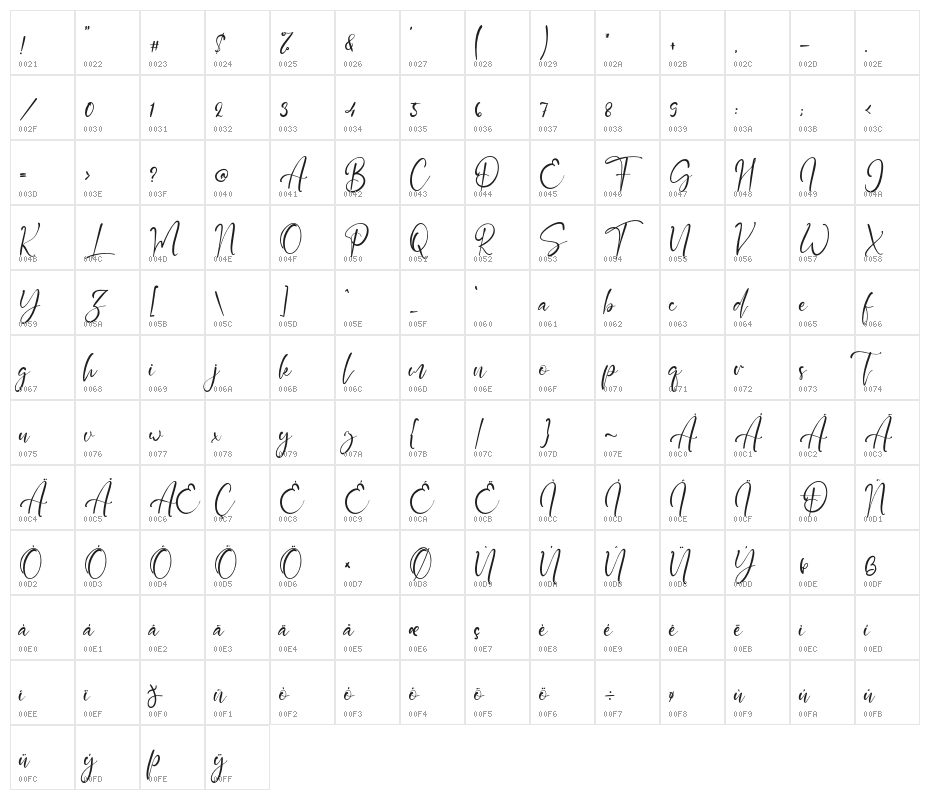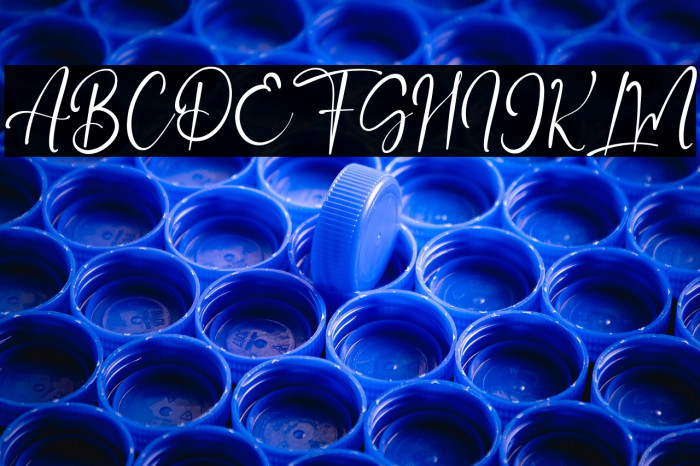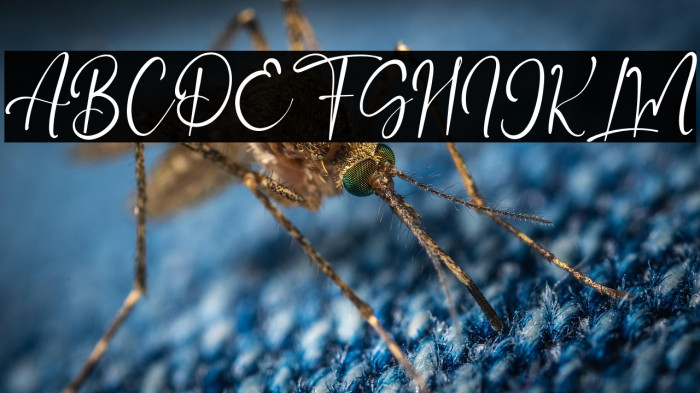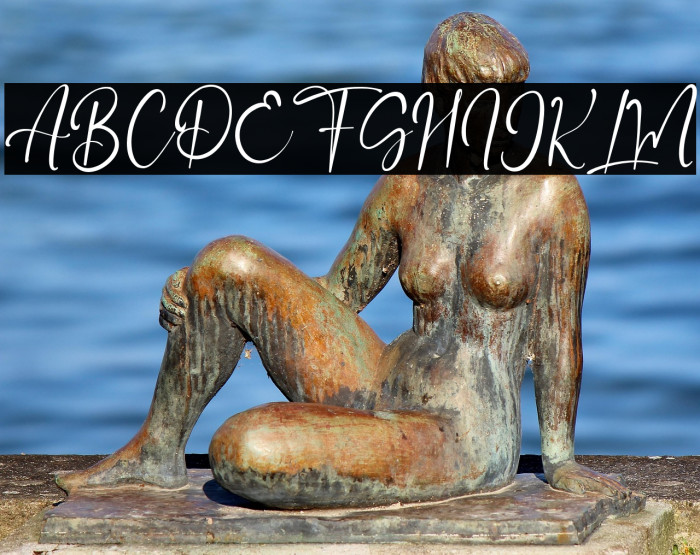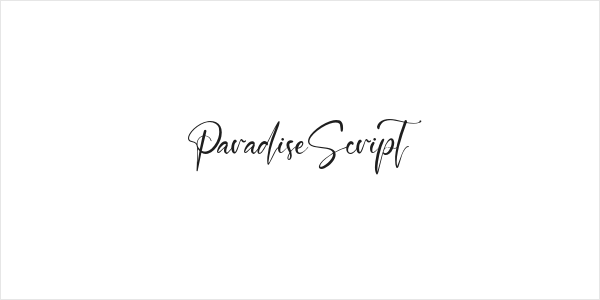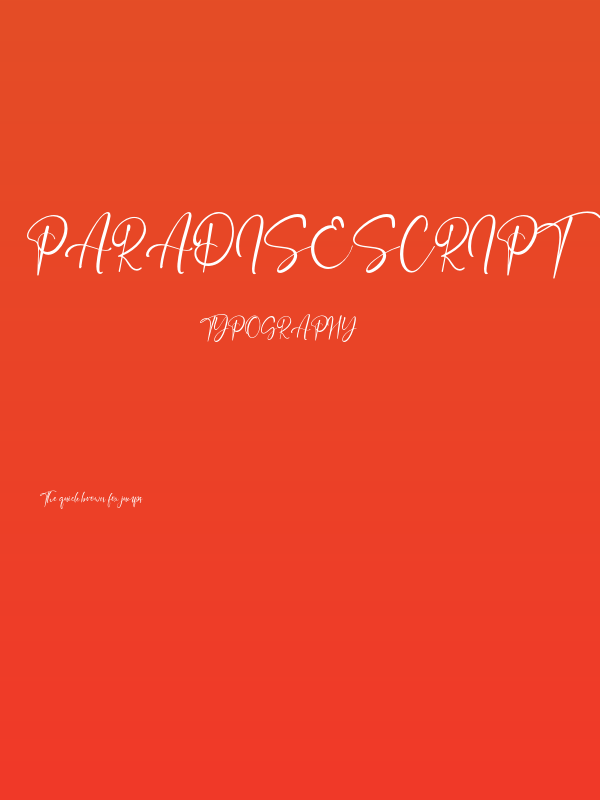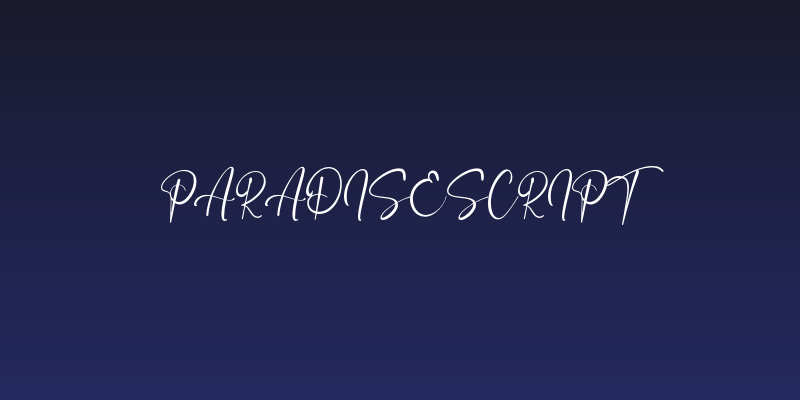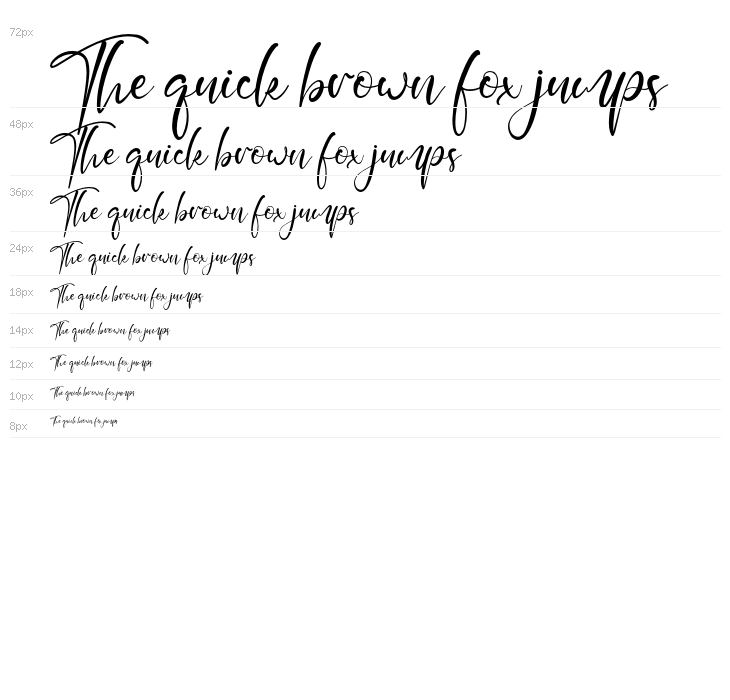
ParadiseScript Font
ParadiseScript Description
This elegant script font features flowing, cursive letterforms with a sophisticated and graceful appearance. The uppercase letters are characterized by their tall, sweeping ascenders and descenders, giving them a sense of movement and fluidity. The lowercase letters maintain a consistent style, with smooth curves and delicate connections between characters. The numerals are designed to complement the overall script style, with a slightly playful yet refined look. Special characters are seamlessly integrated, maintaining the font's cohesive and stylish appearance. This font exudes a sense of elegance and charm, making it ideal for formal invitations, branding, and decorative purposes.
| Overall Style | Elegant |
| Use Case | Invitations, Branding, Decorative |
| Proposed Projects | Ideal for wedding invitations, elegant branding, greeting cards, and decorative projects. |